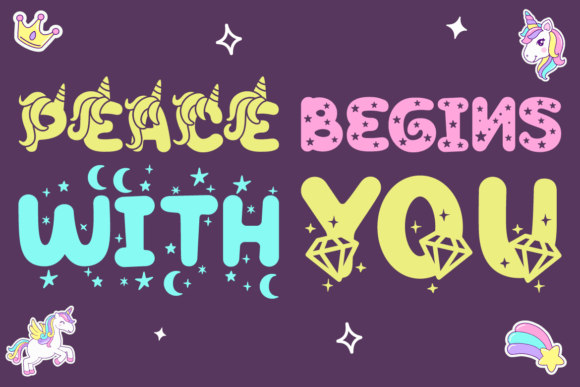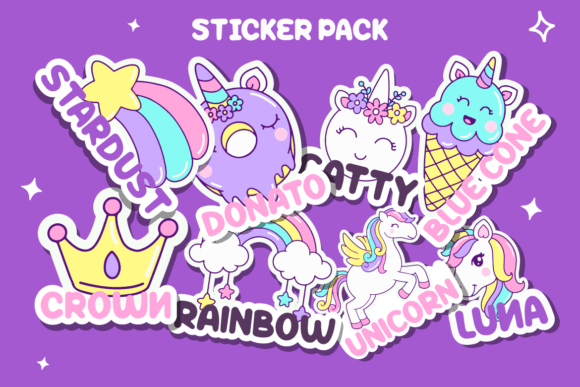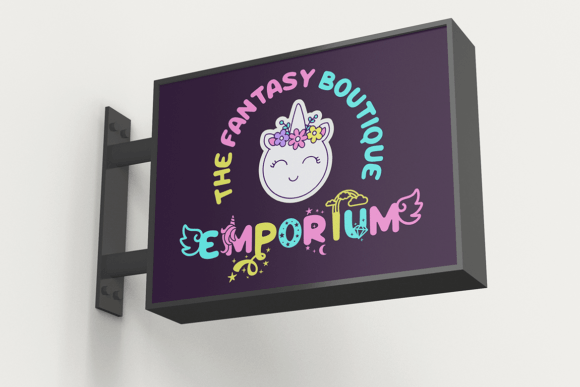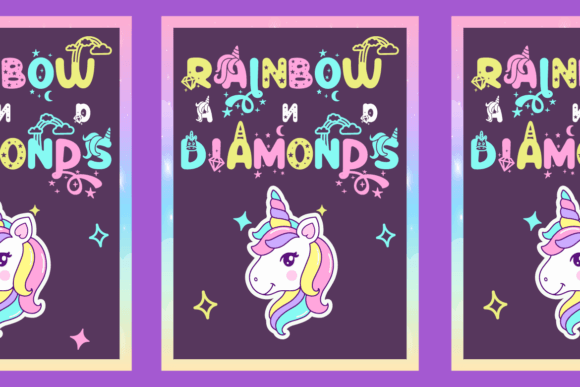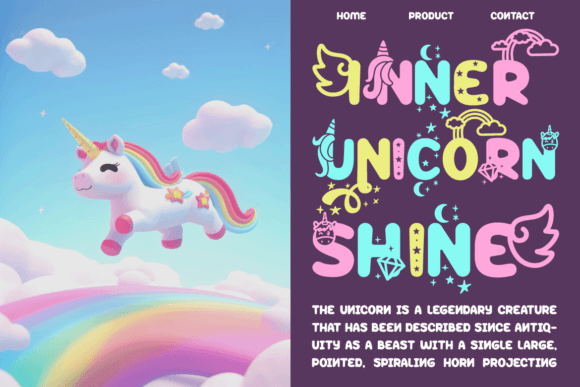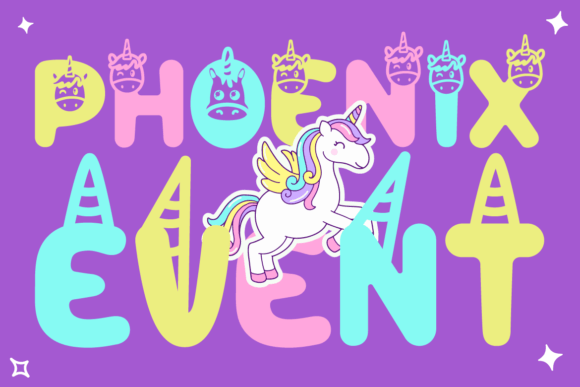
Introduction to Peppy Pegasus Font Font
Fonts play a crucial role in design, and the Peppy Pegasus Font font is a typeface that brings both character and versatility to any project. Whether you’re working on a branding project, a website, or a print design, the Peppy Pegasus Font font offers a unique style that can elevate your work.
Peppy Pegasus β Quirky Unicorn Theme Font is a charming typeface designed to transport you to the whimsical world of unicorns, pegasus, and rainbows.
This font showcases playful, rounded, and soft letterforms that add an element of delight to your designs Itβs versatile and can be used on its own or paired with any of its nine enchanting variations.
Key Features of Peppy Pegasus Font Font
Why Choose Peppy Pegasus Font Font?
The Peppy Pegasus Font font is more than just a typeface β it’s a design tool that helps you communicate your message with style and clarity. Its unique character set and versatile design make it suitable for a wide range of applications, from elegant invitations to bold headlines.
With its carefully crafted letterforms and balanced proportions, the Peppy Pegasus Font font ensures readability and visual appeal across all mediums.
What makes Peppy Pegasus Font font special?
The Peppy Pegasus Font font stands out with its unique design, exceptional readability, and versatility across various design applications.